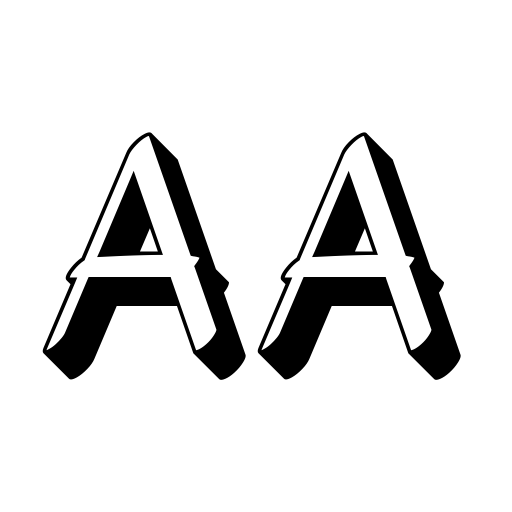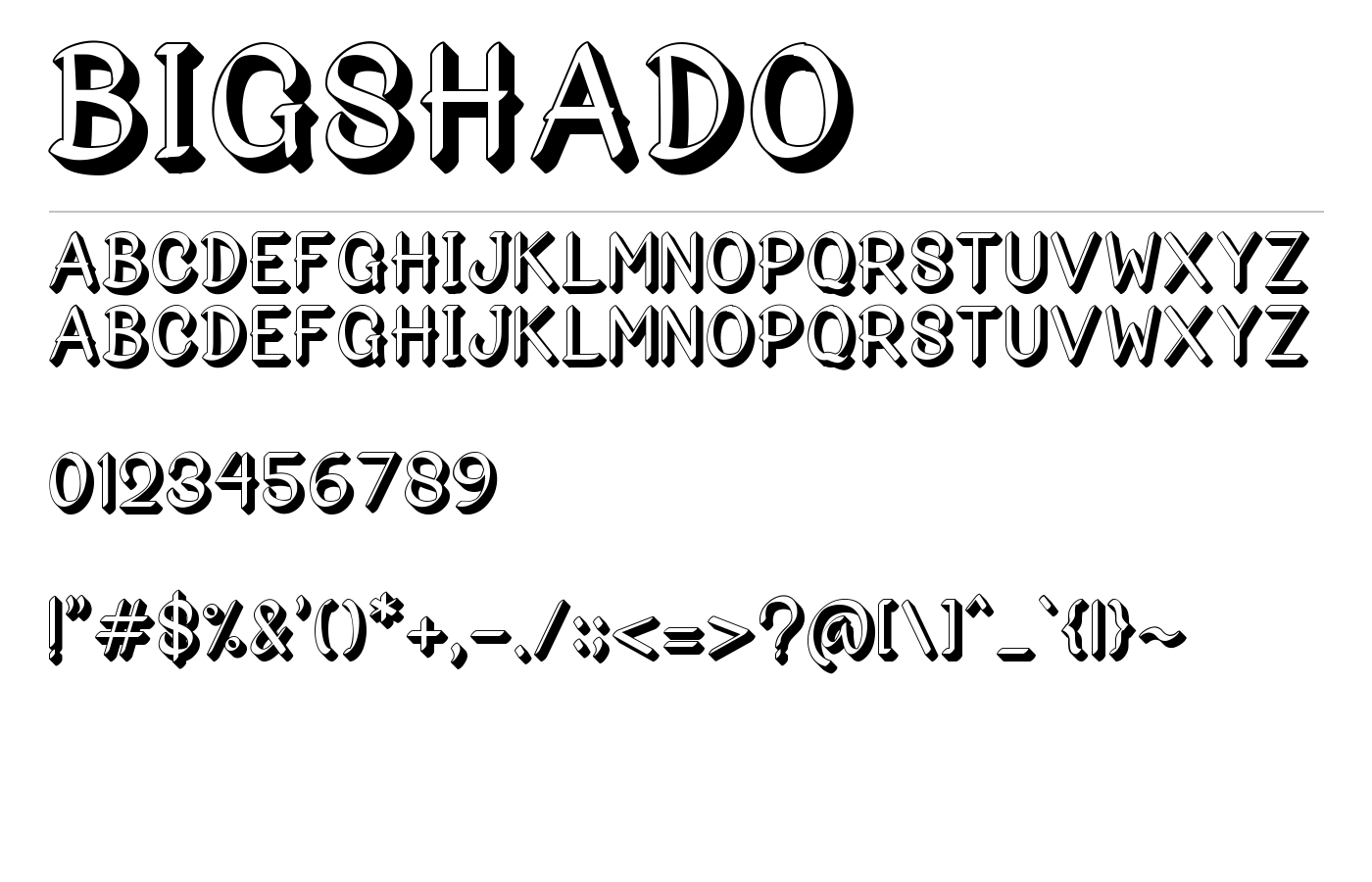
Bigshado is a bold, decorative serif font with a strong vintage vibe, featuring prominent shadow effects that add depth and dimension to each character. Its playful yet structured design makes it perfect for eye-catching headlines, logos, and branding that want to evoke a nostalgic or theatrical feel. This font stands out in creative projects and packaging where a dramatic and memorable style is desired.
Bigshado Font